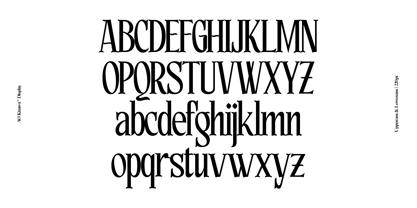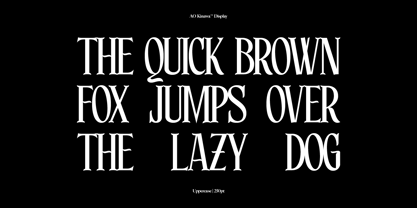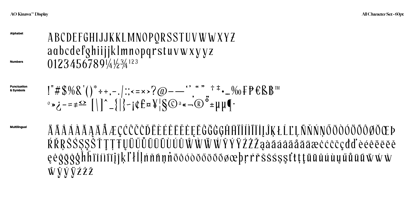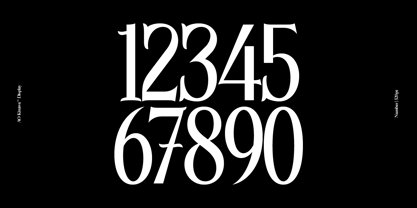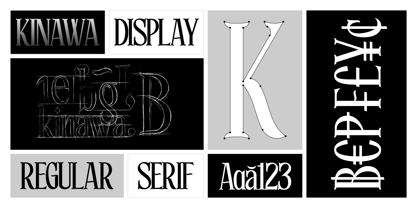
AO Kinawa
by OwunStudio
The AO Kinawa Font Family was designed by Ally Hamid and published by OwunStudio. AO Kinawa contains 1 styles. More about this family
Kinawa is a stylish and elegant display serif with a unique, high-contrast look. Its bold shapes and delicate details give it a modern yet classic feel. Perfect for fashion branding, logos, magazines, posters, packaging, invitations, and other designs that need a classy and eye-catching touch.
Kinawa is made for creating simple but striking typography with a little bit of attitude.
Designers: Ally Hamid
Foundry: OwunStudio